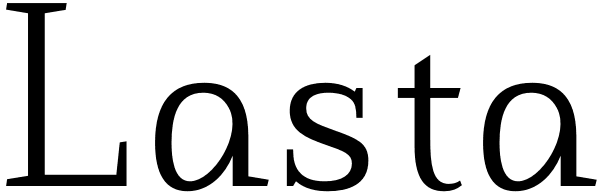
Lasta
Lasta is small serif font family with simple elegant shapes, refreshing Italics and poetic endings. Containing 2 weights and 2 italics, with lower x-height which brings more air (empty space, white space...) into paragraphs making text more graceful...